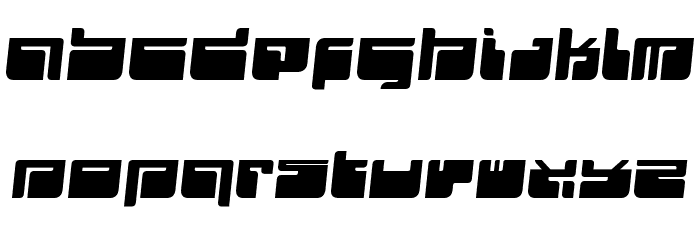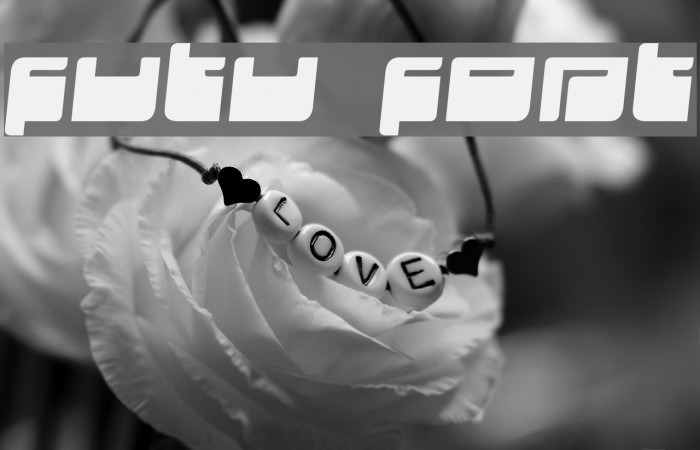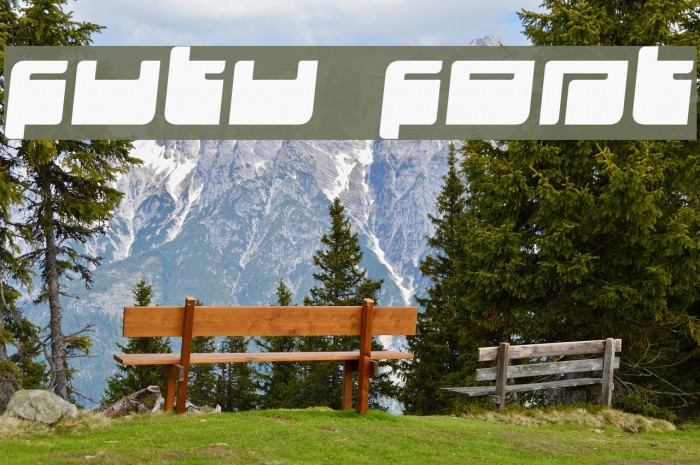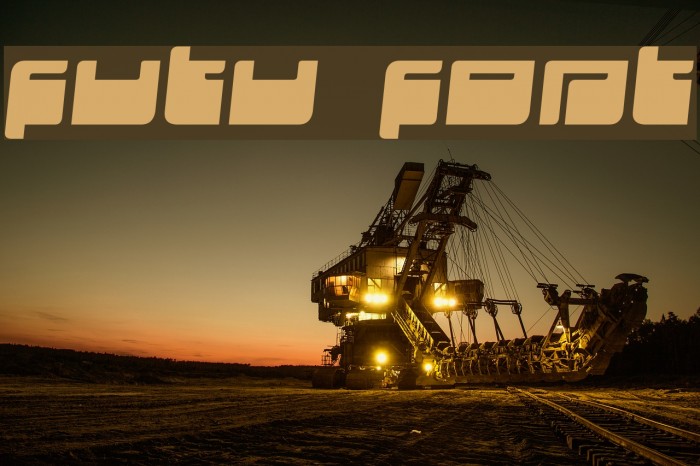
FUTU Font
This font features a futuristic and bold design with a unique geometric structure. Each character is crafted with sharp angles and a blocky appearance, giving it a distinct and modern look. The uppercase and lowercase letters maintain a consistent style, with the lowercase being slightly more compact. The numbers follow the same design principles, ensuring uniformity across all characters. The special characters are stylized to match the overall theme, making them suitable for creative and tech-oriented projects. The font's design is eye-catching and ideal for making a strong visual impact.
A bold, futuristic font with geometric and angular design elements.
- Proposed Projects: Ideal for technology branding, sci-fi posters, video game titles, and modern advertising.